Looking for the perfect spooky, scary, or horror fonts for your next Kittl creation? You’re in the right place.
I’ve curated a collection of over 80 Halloween fonts from Kittl, along with additional custom font pairings you can use to bring your designs to life.
Whether you’re designing a Halloween t-shirt, creating a poster, or crafting eerie social media content, you’ll find plenty of fonts here to match your project.
Let’s dive in!
Best Halloween Fonts on Kittl
Below are some of the best Halloween fonts that I found on Kittl. There’s more than 80 spooky, scary, and horror themed fonts in a variety of styles so there should be something for everyone.
If you’re creating some Halloween designs and creations then scroll down and see if you can find a font or two that works for you:
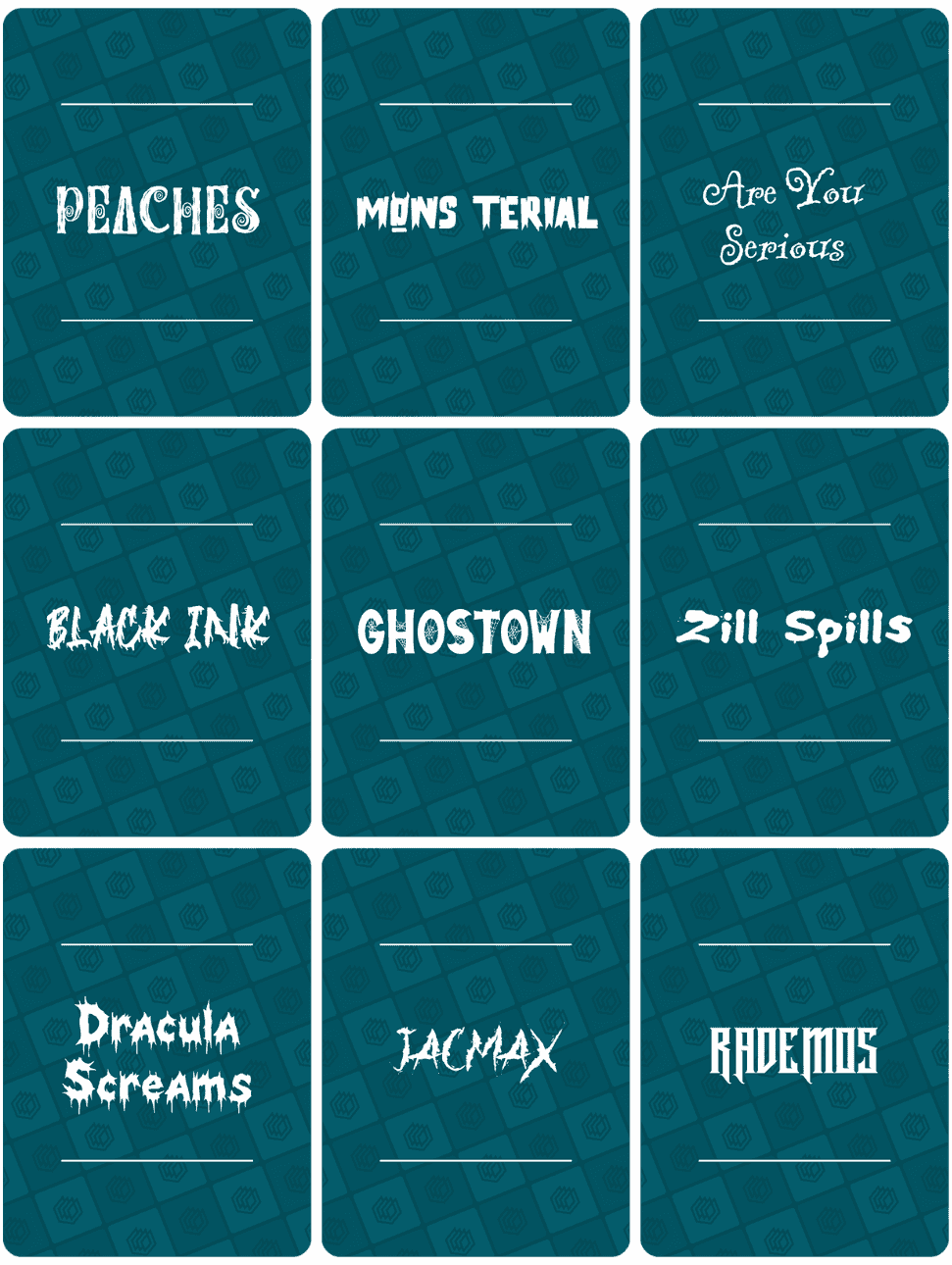
Kittl Halloween font list:
- Peaches
- Mons Terial
- Are You Serious
- Black Ink
- Ghostown
- Zill Spills
- Dracula Screams
- Jacmax
- Rademos
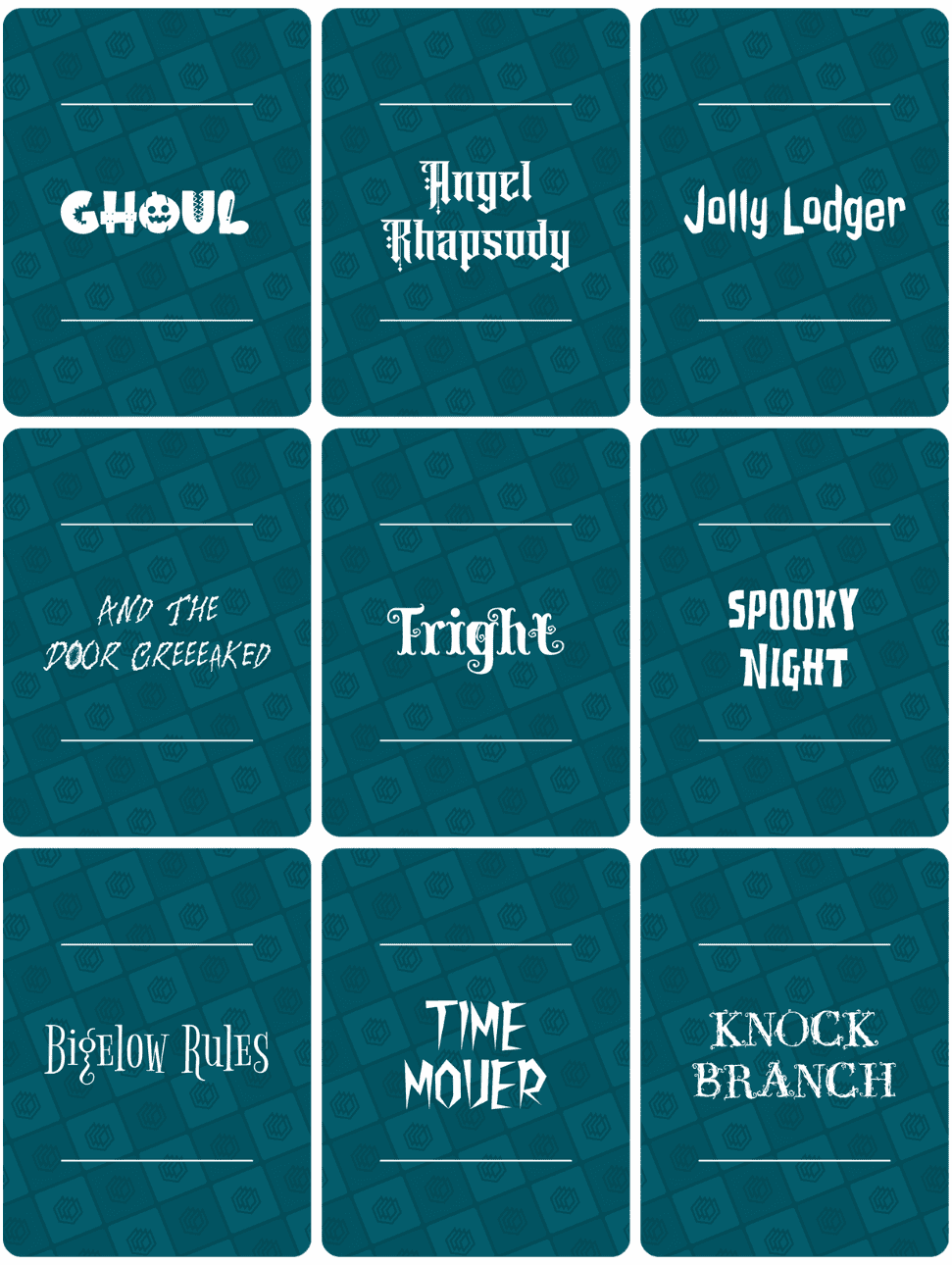
Kittl Halloween font list:
- Ghoul
- Angel Rhapsody
- Jolly Lodger
- And The Door Creeeaked
- Fright
- Spooky Night
- Bigelow Rules
- Time Mover
- Knock Branch
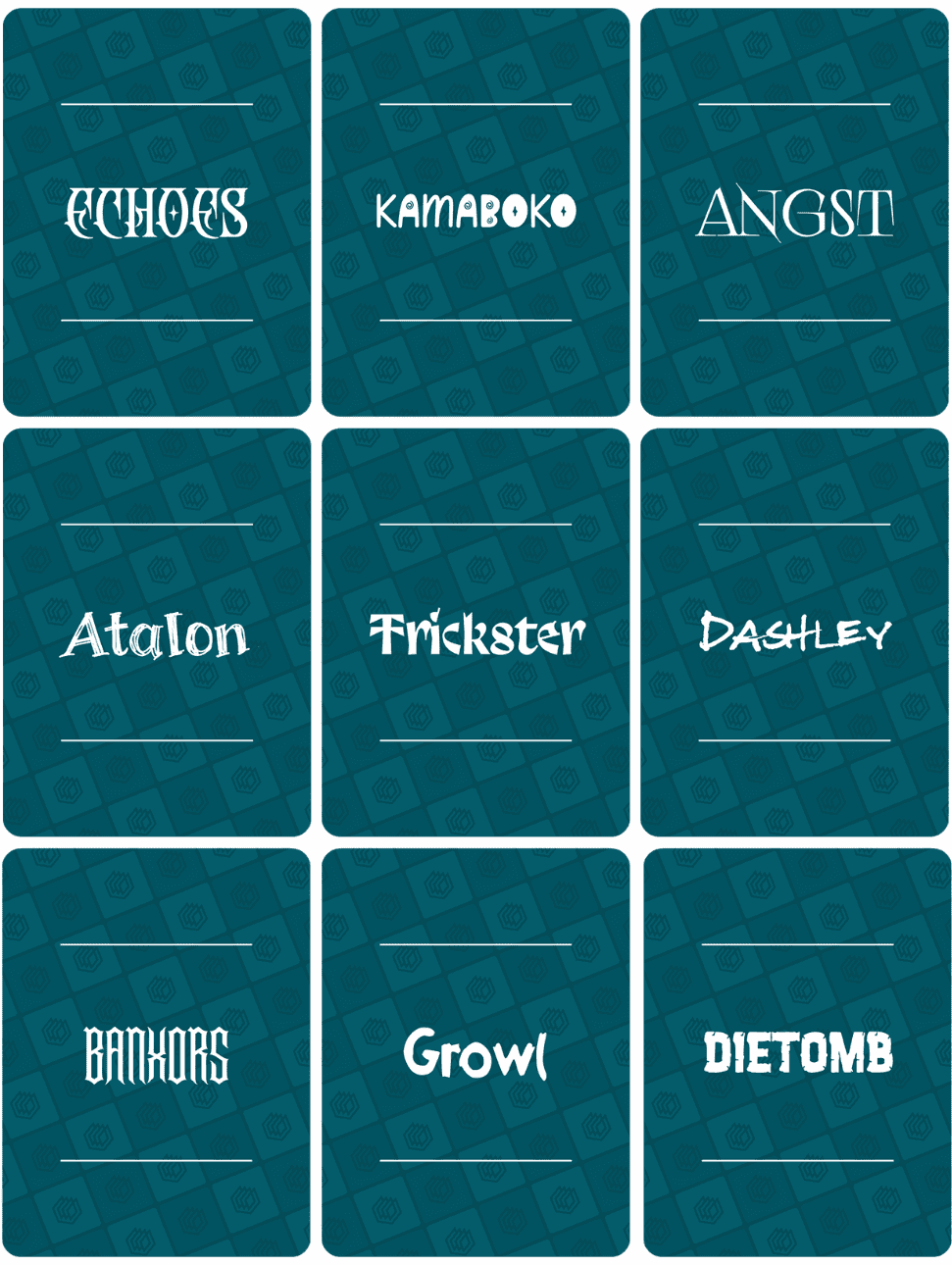
Kittl Halloween font list:
- Echoes
- Kamaboko
- Angst
- Atalon
- Trickster
- Dashley
- Banxors
- Growl
- Dietomb
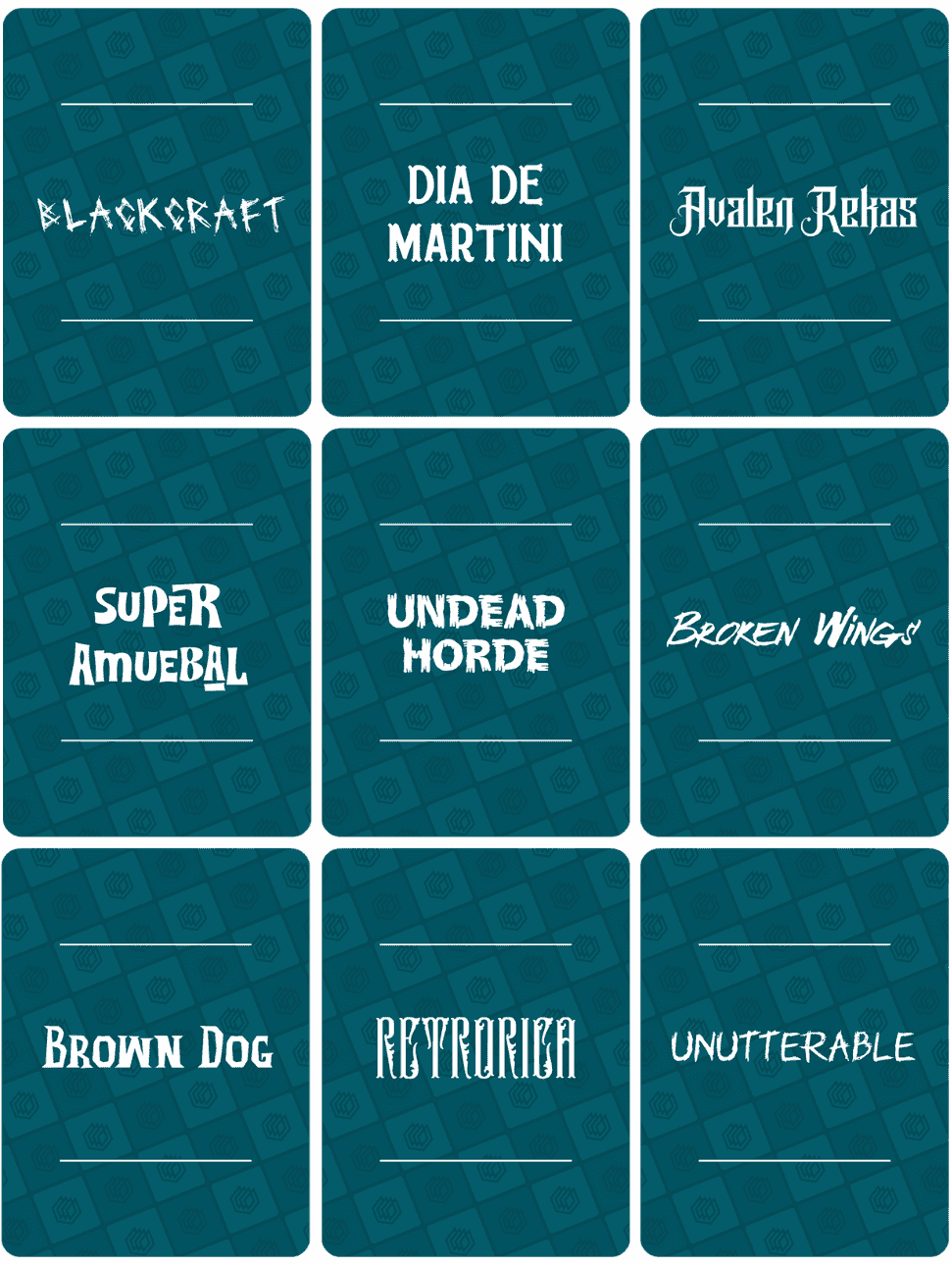
Kittl Halloween font list:
- Blackcraft
- Dia De Martini
- Avalen Rekas
- Super Amuebal
- Undead Horde
- Broken Wings
- Brown Dog
- Retrorica
- Unutterable
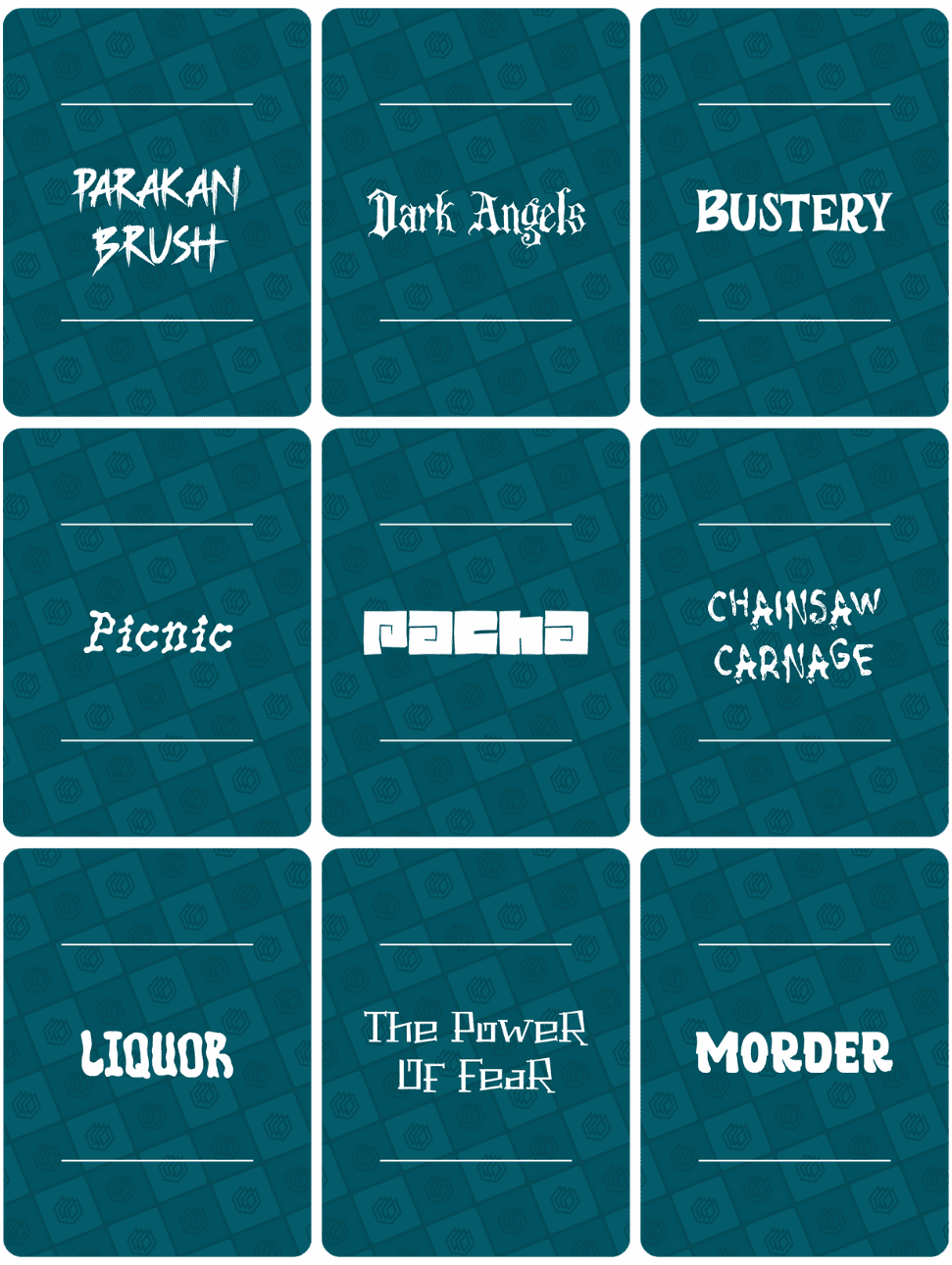
Kittl Halloween font list:
- Parakan Brush
- Dark Angels
- Bustery
- Picnic
- Pacha
- Chainsaw Carnage
- Liquor
- The Power Of Fear
- Morder
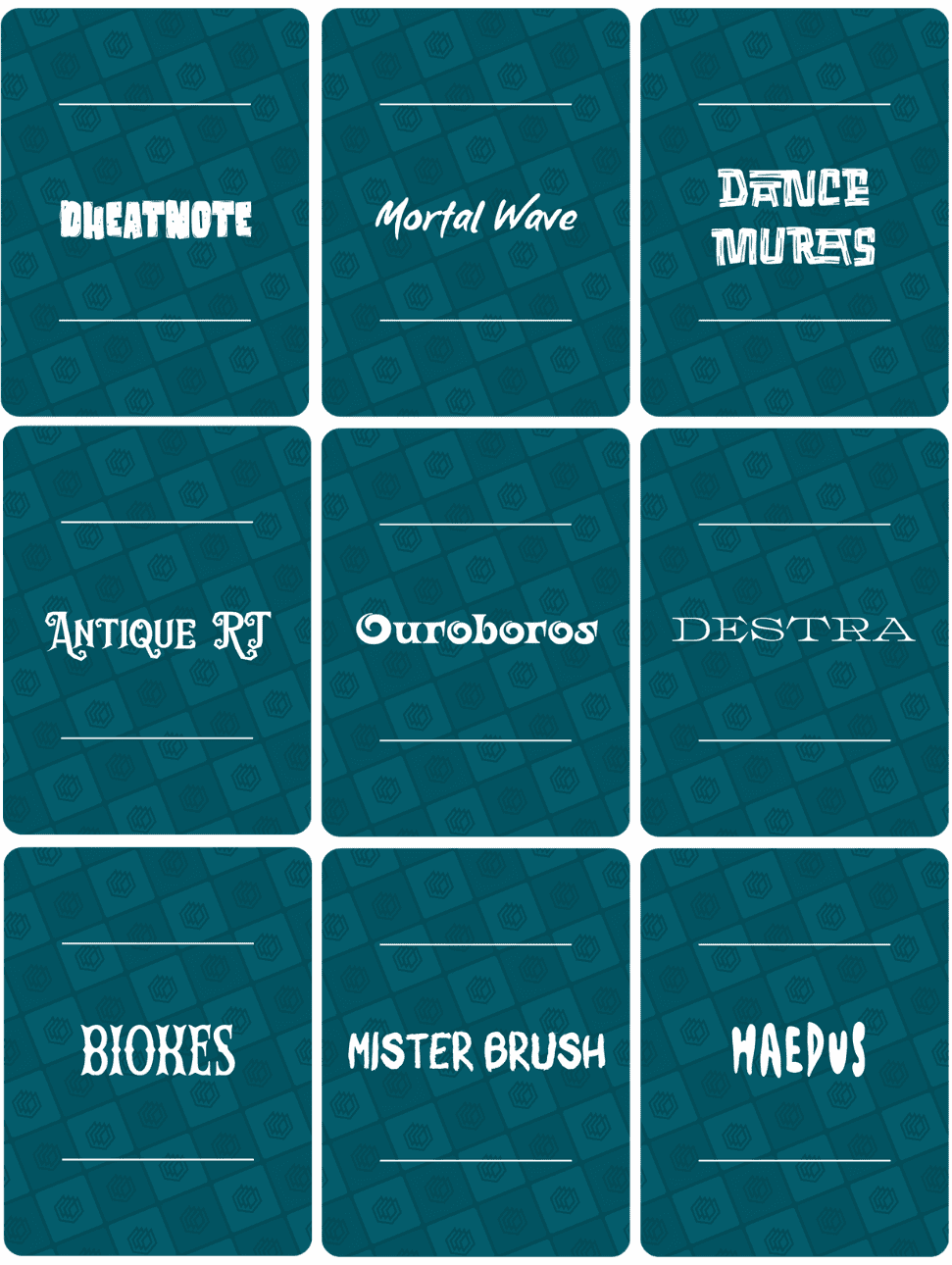
Kittl Halloween font list:
- Dheatnote
- Mortal Wave
- Dance Muras
- Antique RT
- Ouroboros
- Destra
- Biokes
- Mister Brush
- Haedus
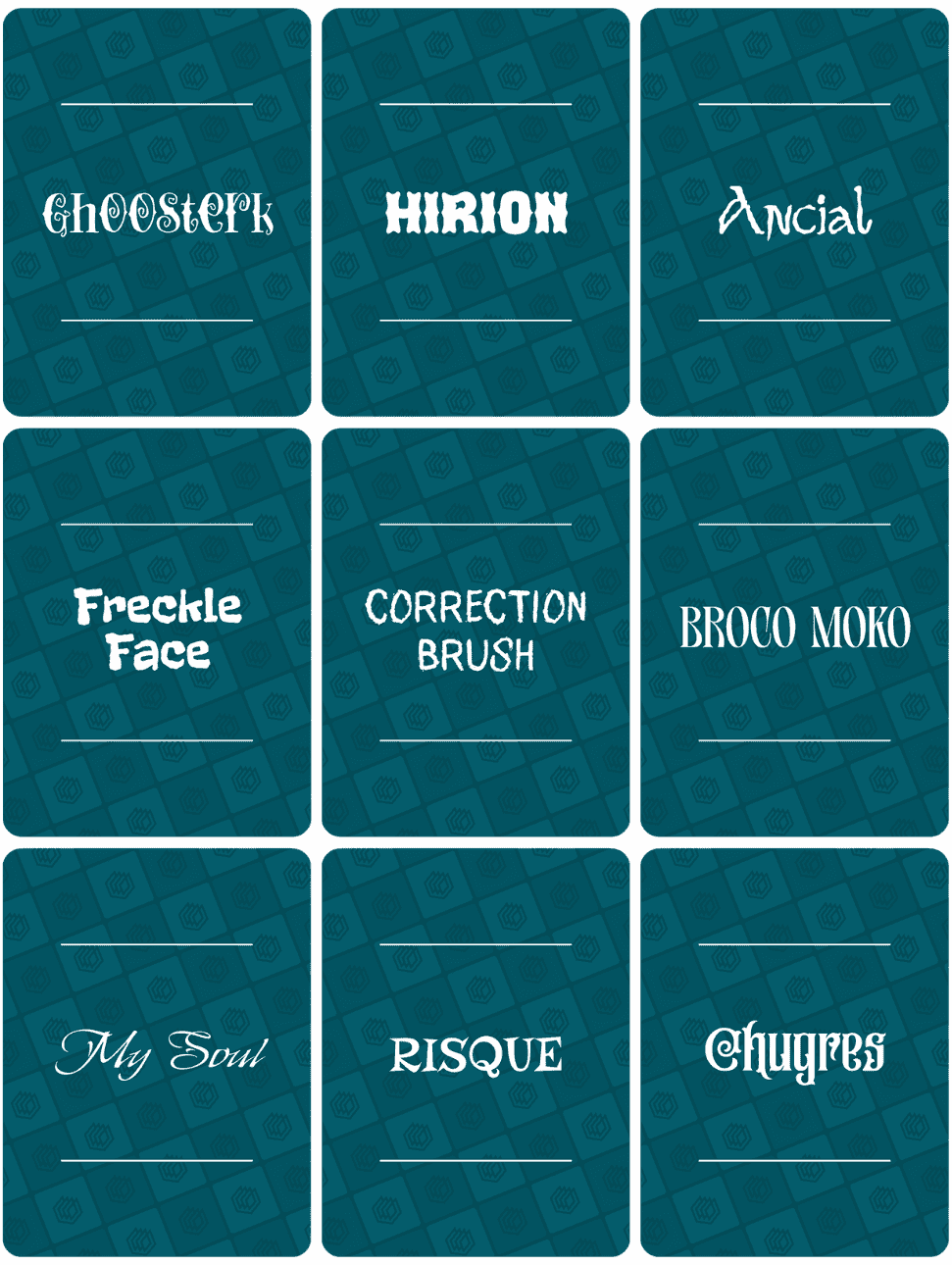
Kittl Halloween font list:
- Ghoosterk
- Hirion
- Ancial
- Freckle Face
- Correction Brush
- Broco Moko
- My Soul
- Risque
- Chugres
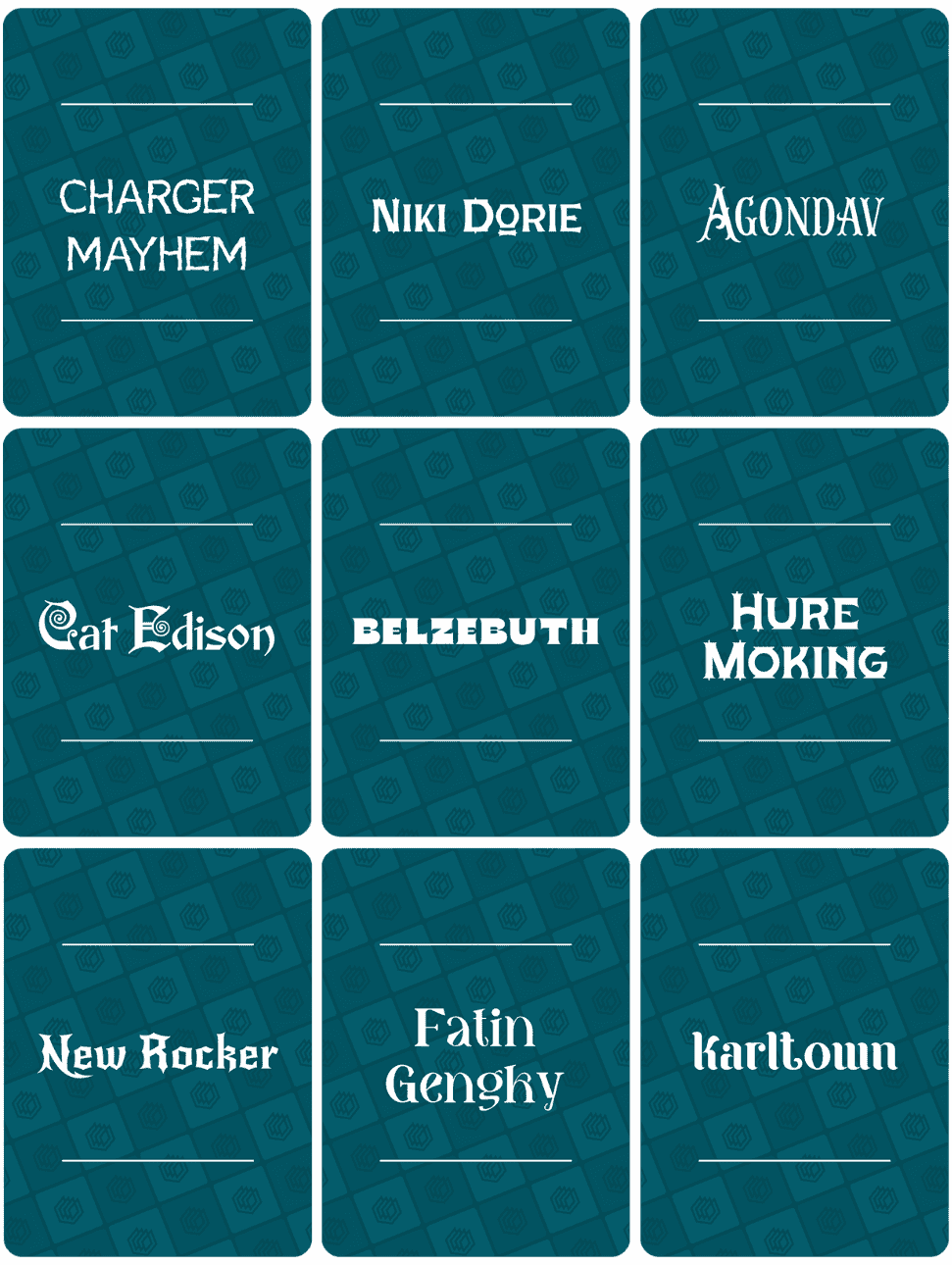
Kittl Halloween font list:
- Charger Mayhem
- Nikie Dorie
- Agondav
- Cat Edison
- Belzebuth
- Hure Moking
- New Rocker
- Fatin Gengky
- Karltown
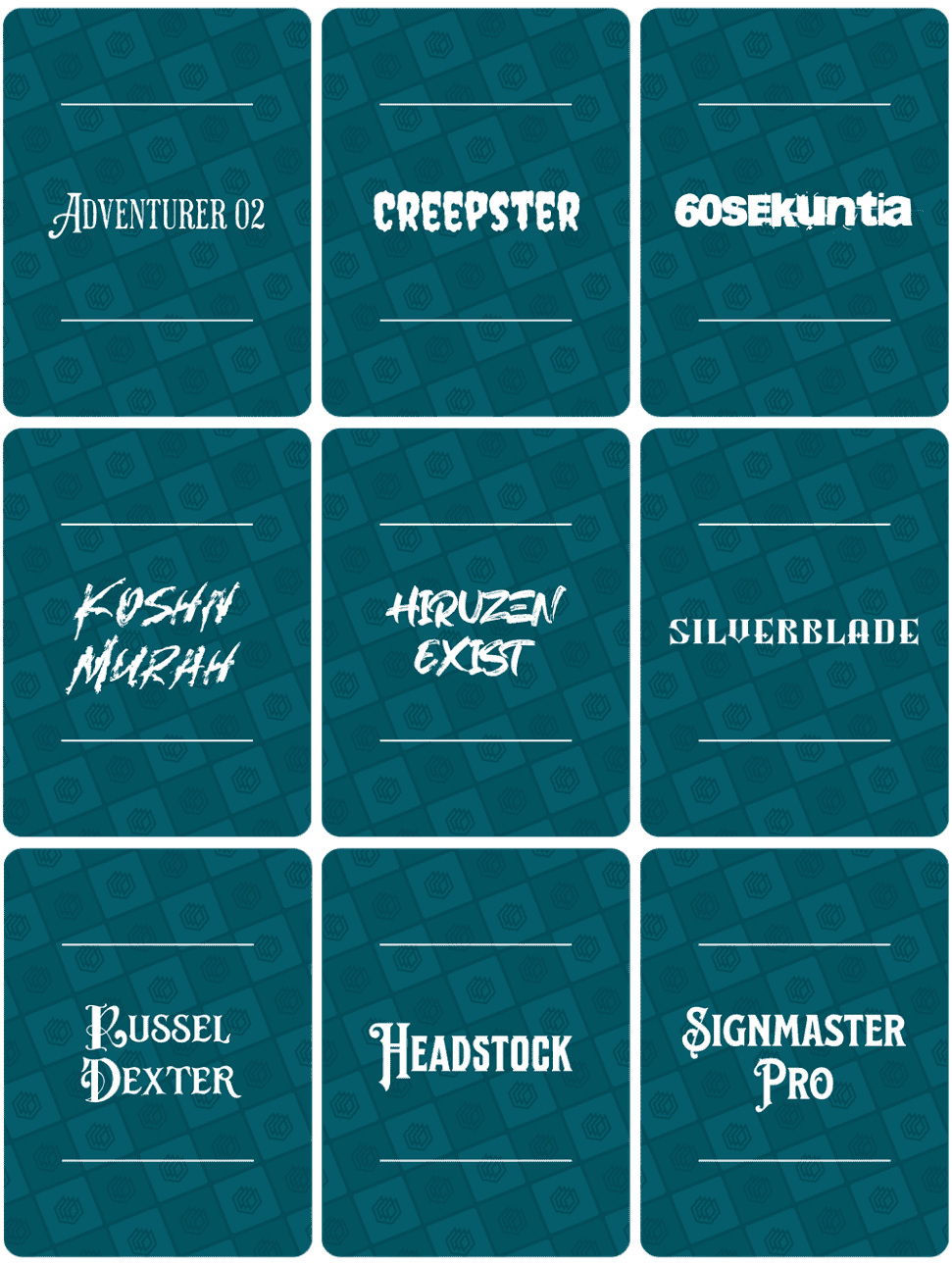
Kittl Halloween font list:
- Adventurer 02
- Creepster
- 60Sekuntia
- Koshn Murah
- Hiruzen Exist
- Silverblade
- Russel Dexter
- Headstock
- Signmaster Pro
Halloween Font Combinations on Kittl
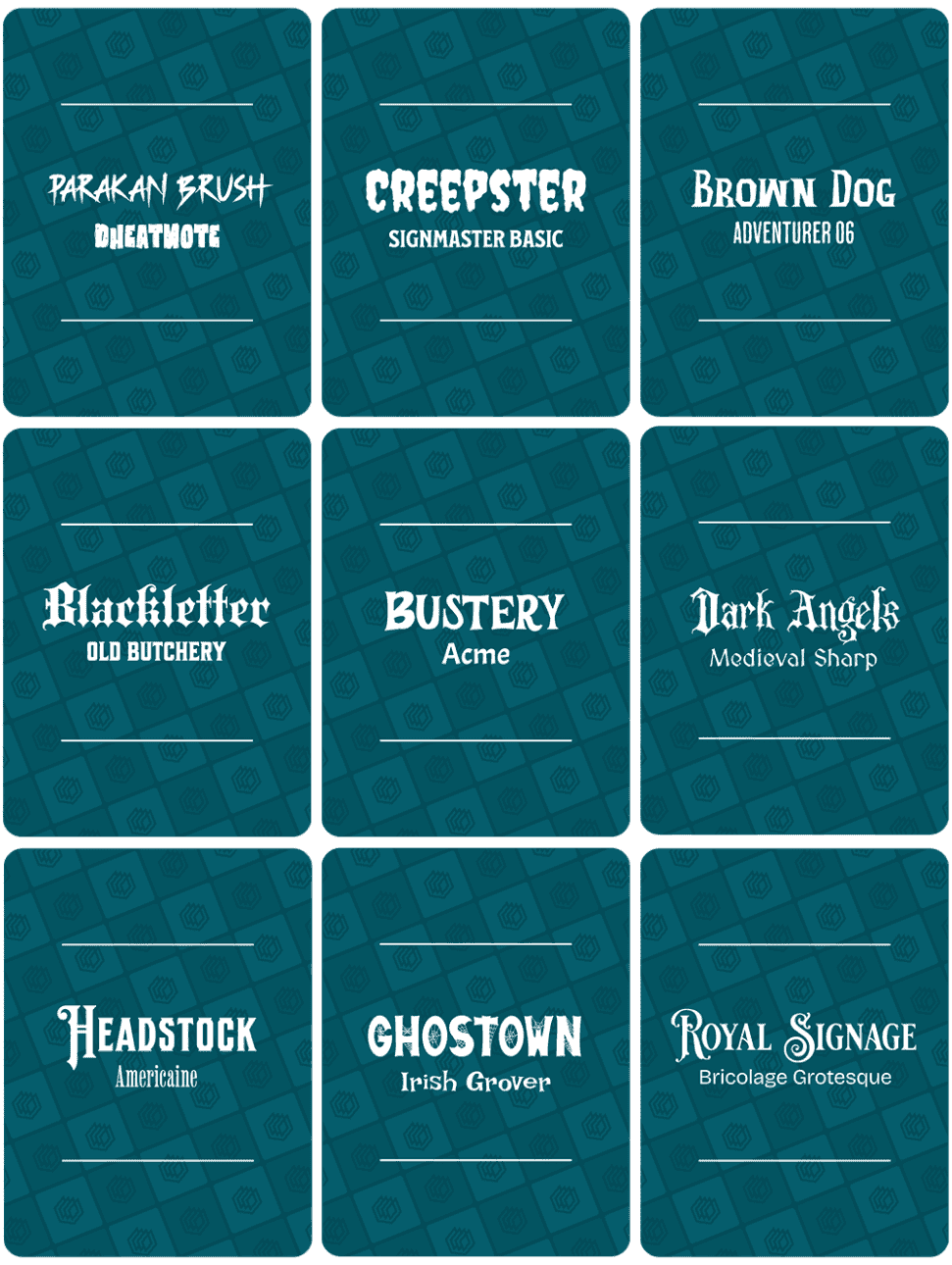
Kittl Halloween font pairings:
- Parakan Brush + Dheatnote
- Creepster + Signmaster Basic
- Brown Dog + Adventurer 06
- Blackletter + Old Butchery
- Bustery + Acme
- Dark Angels + Medieval Sharp
- Headstock + Americaine
- Ghostown + Irish Grover
- Royal Signage + Bricolage Grotesque
Final thoughts
There you have it. A fantastic collection of 80+ Halloween fonts and font pairings for your Kittl projects. With so many styles to explore, you’ll have no trouble crafting eye-catching, on-theme designs this spooky season.